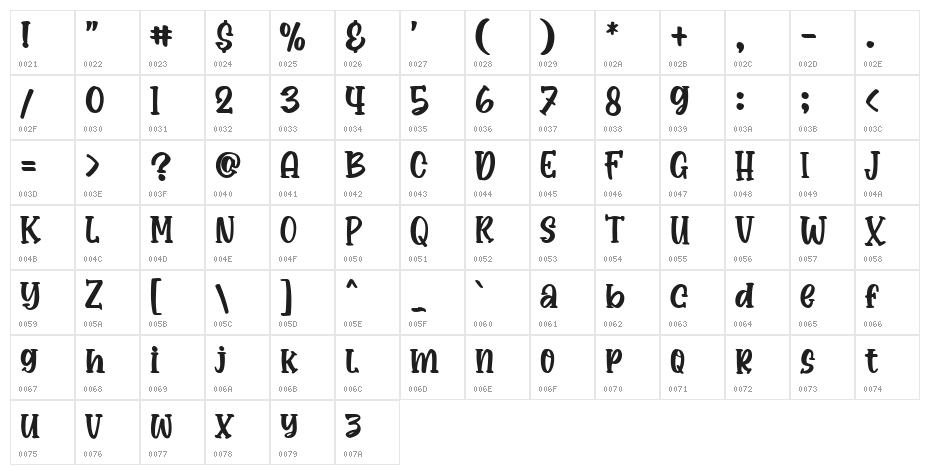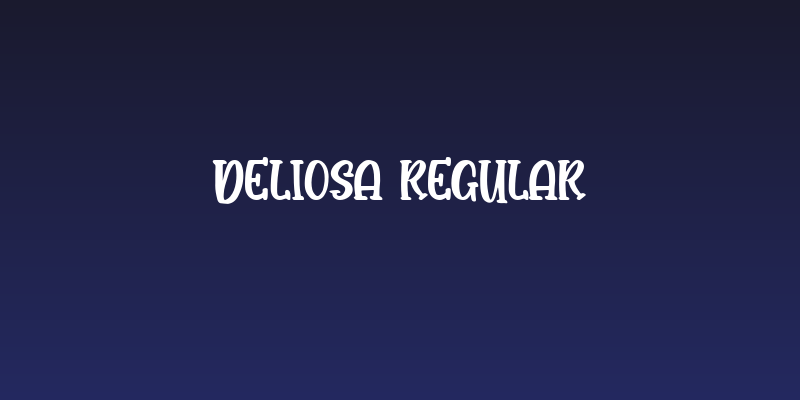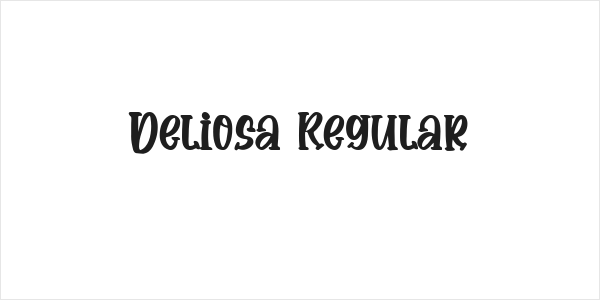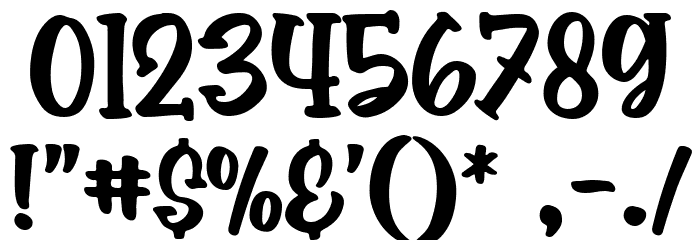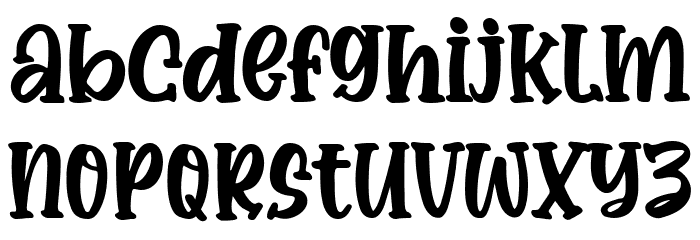
Deliosa Regular Font
Deliosa Regular Description
This font features a playful and bold design with a handwritten feel. The characters are rounded and have a consistent thickness, giving them a friendly and approachable appearance. The uppercase and lowercase letters maintain a uniform style, with slight variations that add to the casual aesthetic. The numerals are equally bold and maintain the same playful style as the letters. Special characters are creatively designed, fitting seamlessly with the overall look. This font is ideal for projects that require a fun and informal touch, such as children's books, playful branding, or creative posters.
| Overall Style | Playful |
| Proposed Projects | Children's books, playful branding, creative posters, casual invitations. |